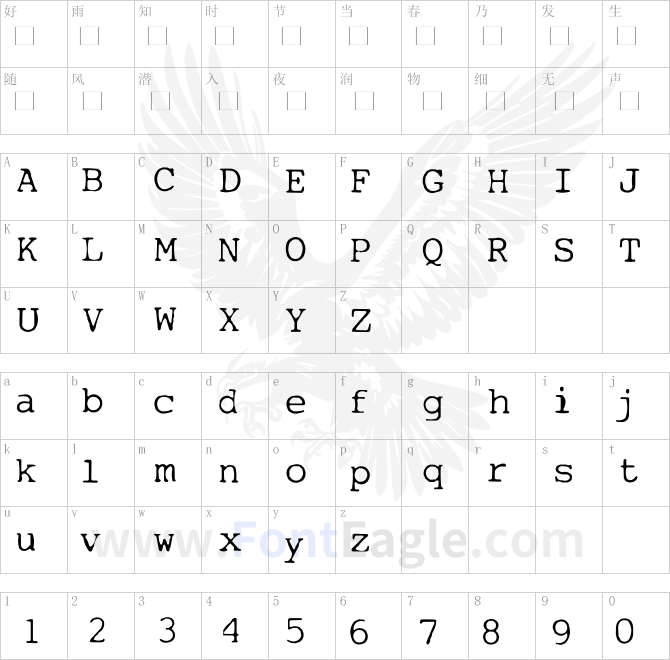
My-type-of-font is a great font, widely used in graphic design, single-page menu design, poster design and other fields, and is deeply loved by designers.My-type-of-font download.